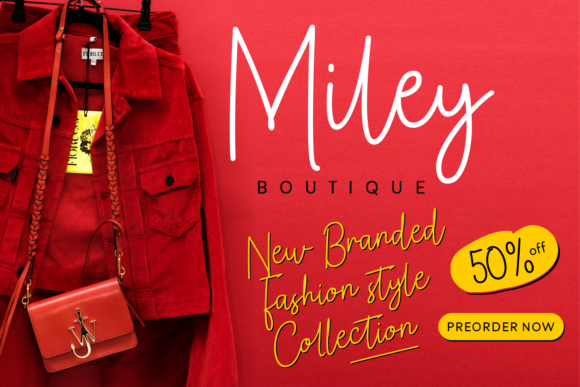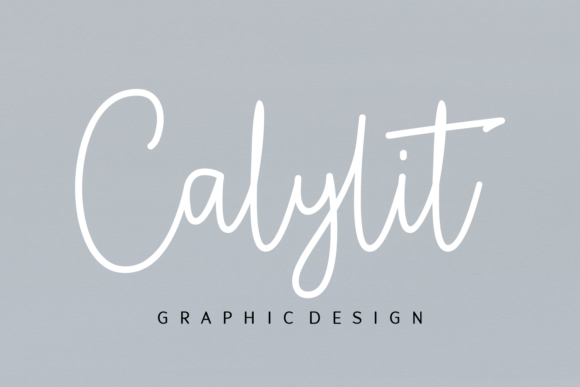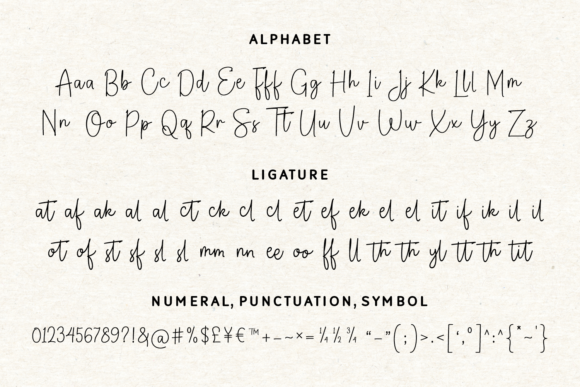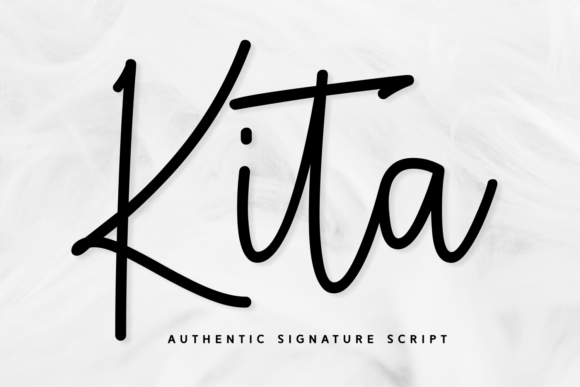
Introduction to Kita Font
Kita is a particularly elegant and graceful script font.
It will beautifully complement romantic designs, invitations that need a personal touch, and other creations in need of a spectacular look .
Why Choose Kita Font?
Kita Font offers exceptional quality and versatility, making it a valuable addition to your design toolkit. Whether you’re creating for personal projects or commercial use, Kita Font delivers professional results.